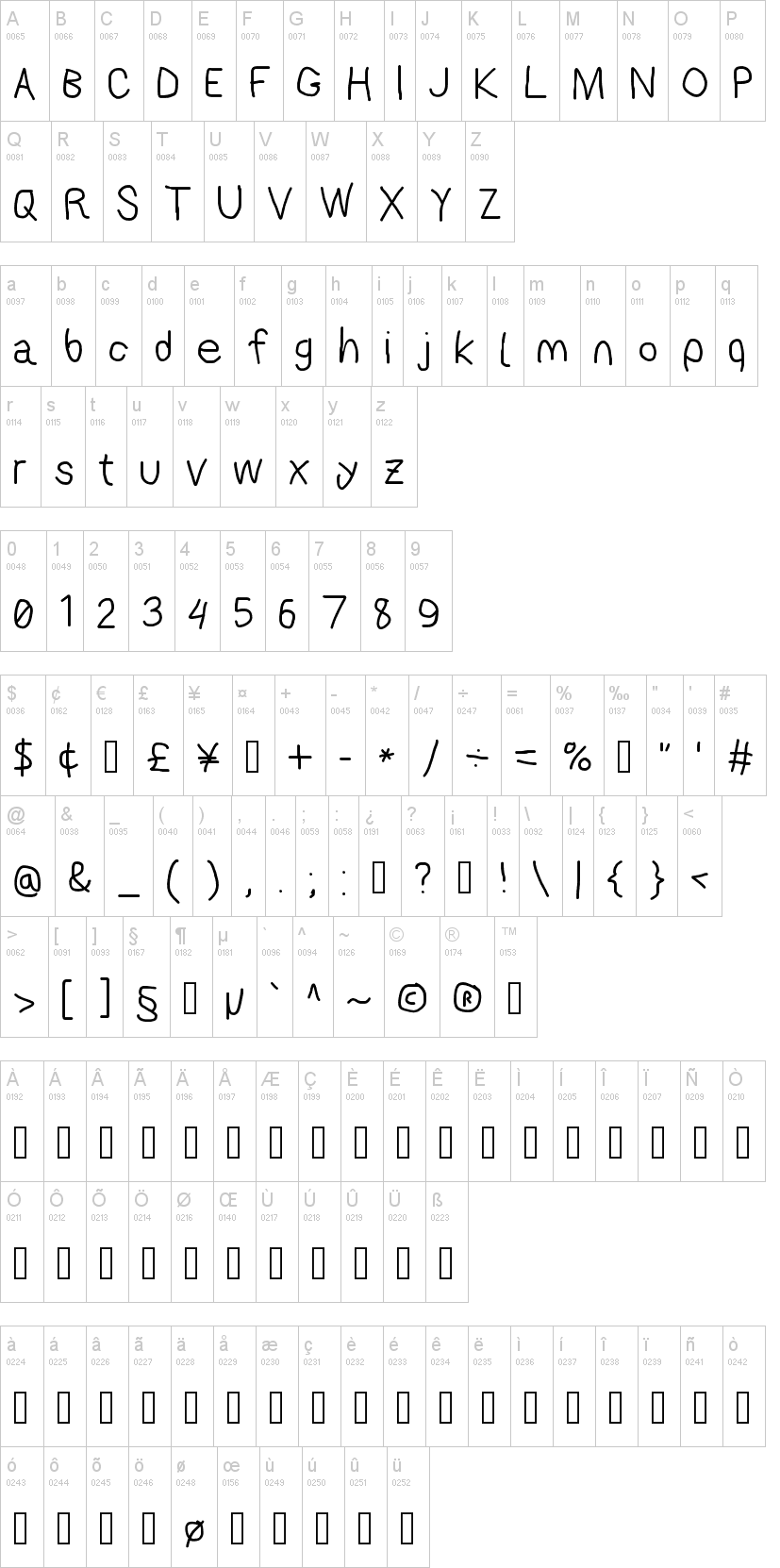
AppleStormIta.otfAppleStormCBo.otfAppleStormCBoIta.otfAppleStormShdRg.otfAppleStormShdRgIta.otfAppleStormShdXbd.otfAppleStormShdXbdIta.otfAppleStormXbd.otfAppleStormXbdIta.otfAppleStormXbdFax.otfAppleStormXbdFaxIta.otfAppleStormXbdOut.otfAppleStormXbdOutIta.otfNote of the authorThis is an Open Source Handwriting font family. I tested a few new ideas for making new styles and weights for future projects.